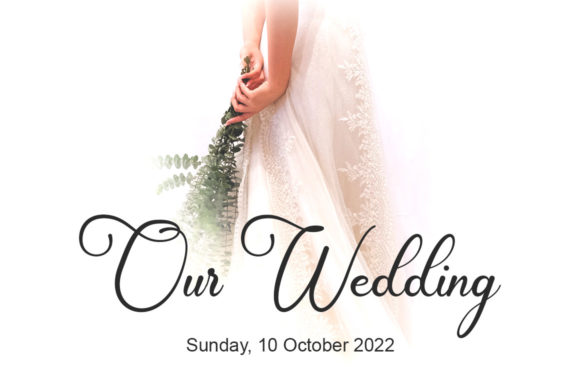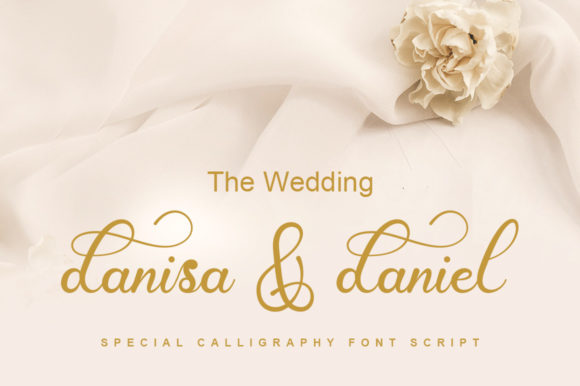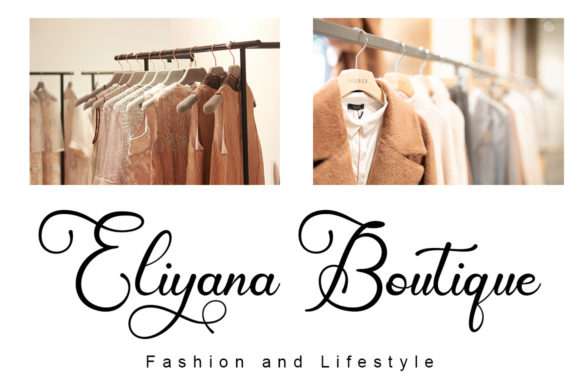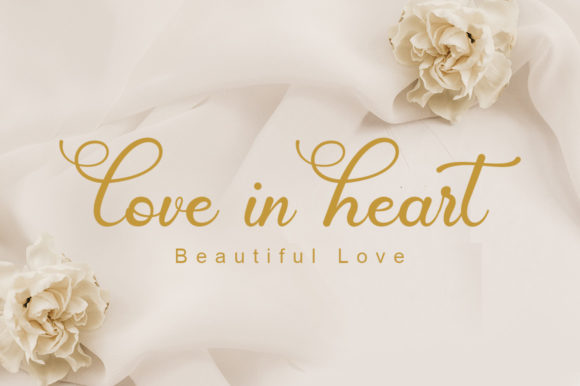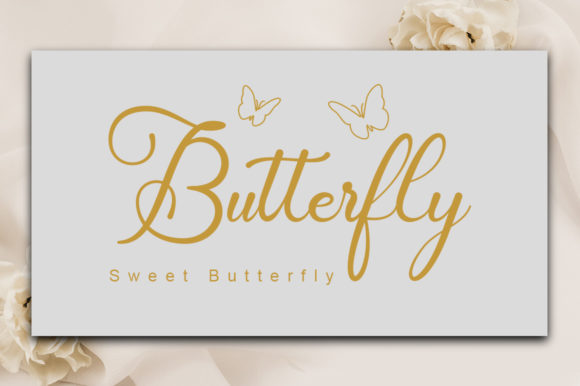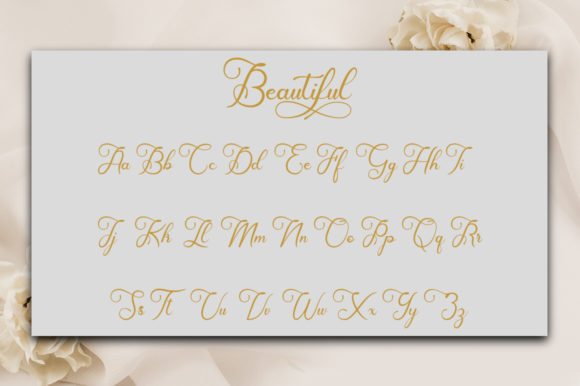
The Beauty of Typography: Introducing the Beautiful Font
When it comes to designing visually stunning materials, the right font can make all the difference. For those seeking a romantic, elegant, and modern script font, look no further than the Beautiful Font. This exquisite font is designed to add a touch of sophistication and charm to any design, making it perfect for wedding invitations, greeting cards, and other creative projects.
A Closer Look at the Beautiful Font
The Beautiful Font is a masterfully crafted script font that boasts smooth and neat kerning, ensuring that each letter flows seamlessly into the next. With its elegant lines and curves, this font exudes a sense of luxury and refinement, making it ideal for designs that require a high level of sophistication. Whether you’re creating wedding invitations, invitation cards, or templates, the Beautiful Font is sure to impress.
Key Features of the Beautiful Font
- Smooth and Neat Kerning: The Beautiful Font features expertly crafted kerning, ensuring that each letter is perfectly spaced for optimal readability and aesthetics.
- Many Alternates: With a range of alternate characters, you can add variety and creativity to your designs, making each one unique and eye-catching.
- PUA Encoded: The Beautiful Font is PUA (Private Use Area) encoded, giving you easy access to all glyphs and swashes. This means you can effortlessly incorporate the font’s beautiful alternates and ornaments into your designs.
The Beautiful Font is incredibly versatile and can be used in a wide range of design projects. Some ideas include:
- Wedding Invitations: Add a touch of romance and elegance to your wedding invitations with the Beautiful Font.
- Invitation Cards: Create stunning invitation cards for birthdays, baby showers, and other special occasions.
- Templates: Use the Beautiful Font to create gorgeous templates for social media, blogs, or websites.
- Stationery and Packaging: Elevate your brand’s stationery and packaging with the Beautiful Font’s sophisticated and modern aesthetic.
Why Designers and Crafters Love the Beautiful Font
Designers and crafters alike adore the Beautiful Font for its unique combination of elegance, versatility, and ease of use. Here are just a few reasons why:
- High-Quality Design: The font’s smooth kerning and beautiful alternates ensure that your designs look professional and polished.
- Time-Saving: With the Beautiful Font’s range of alternates and swashes, you can create stunning designs in a fraction of the time it would take with other fonts.